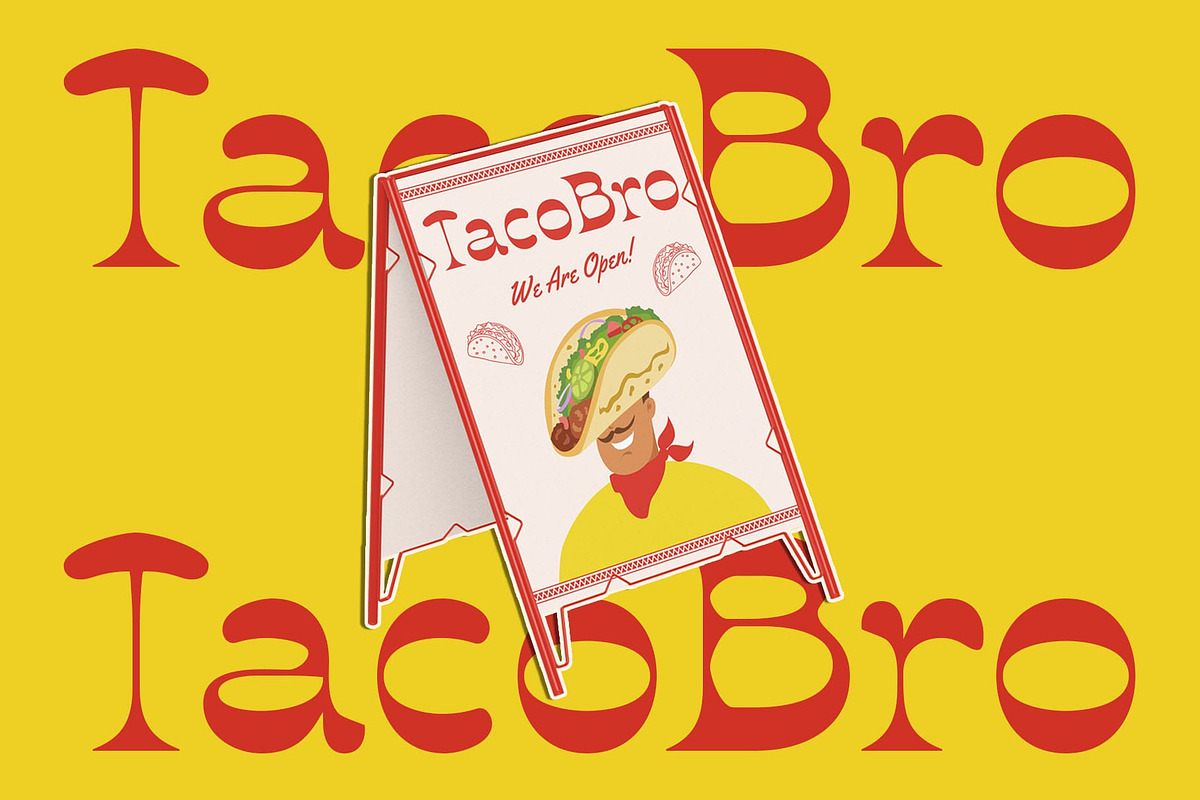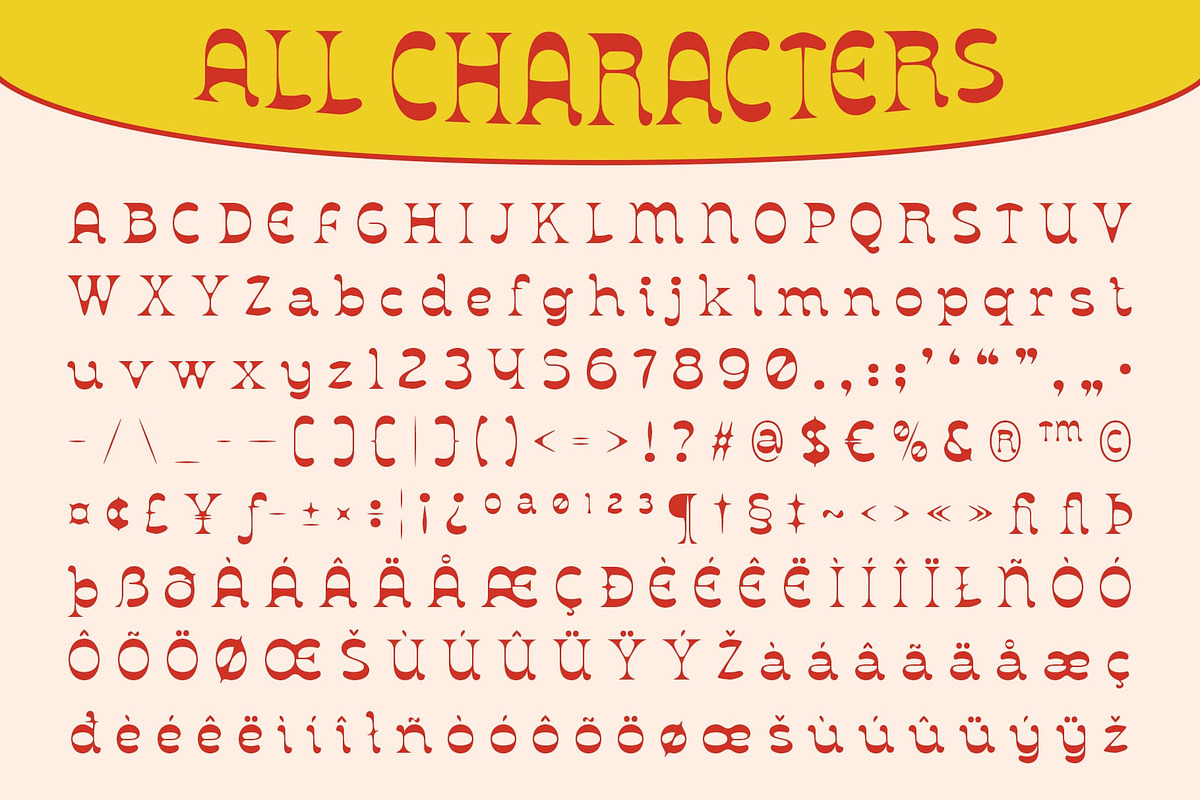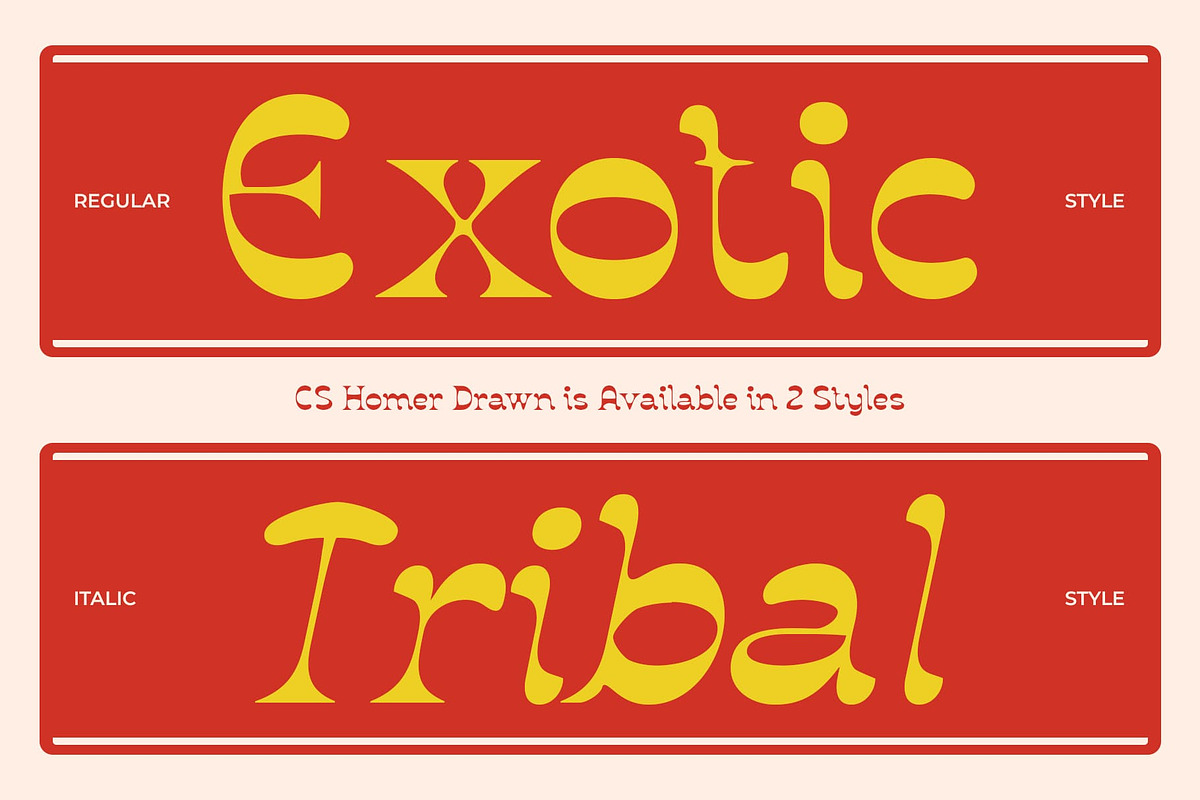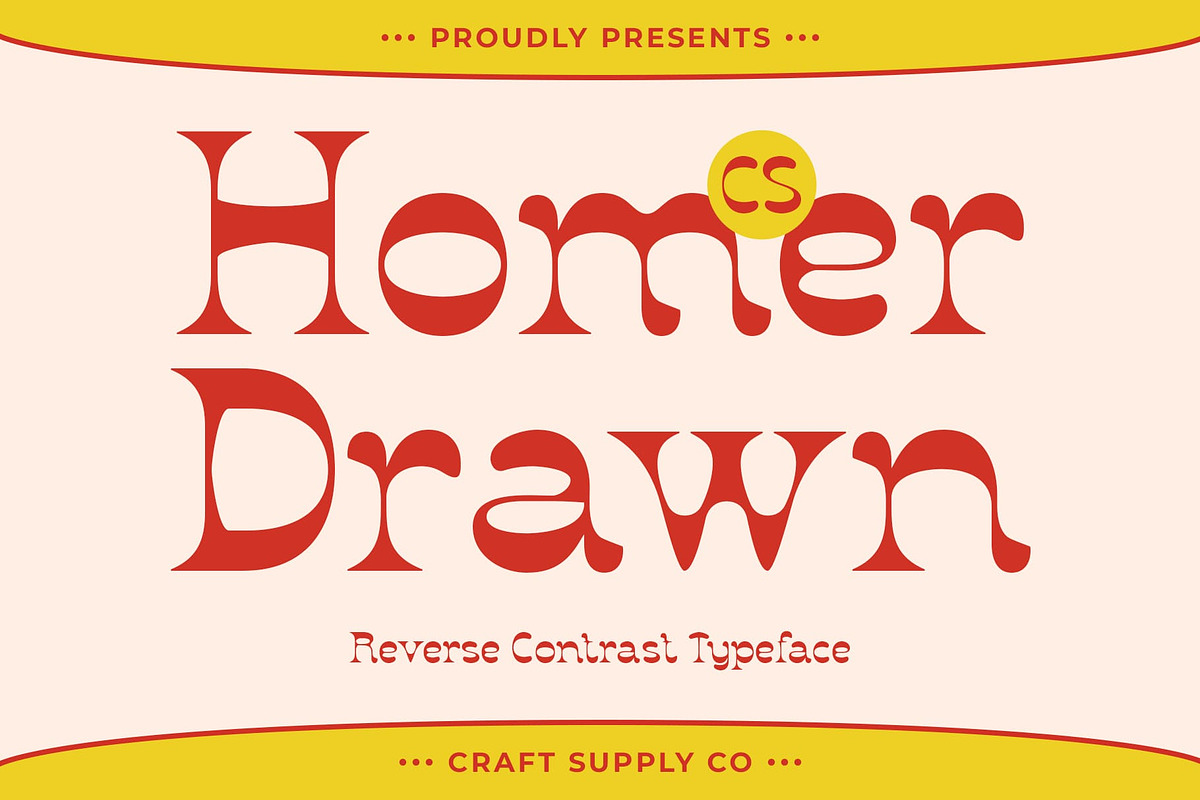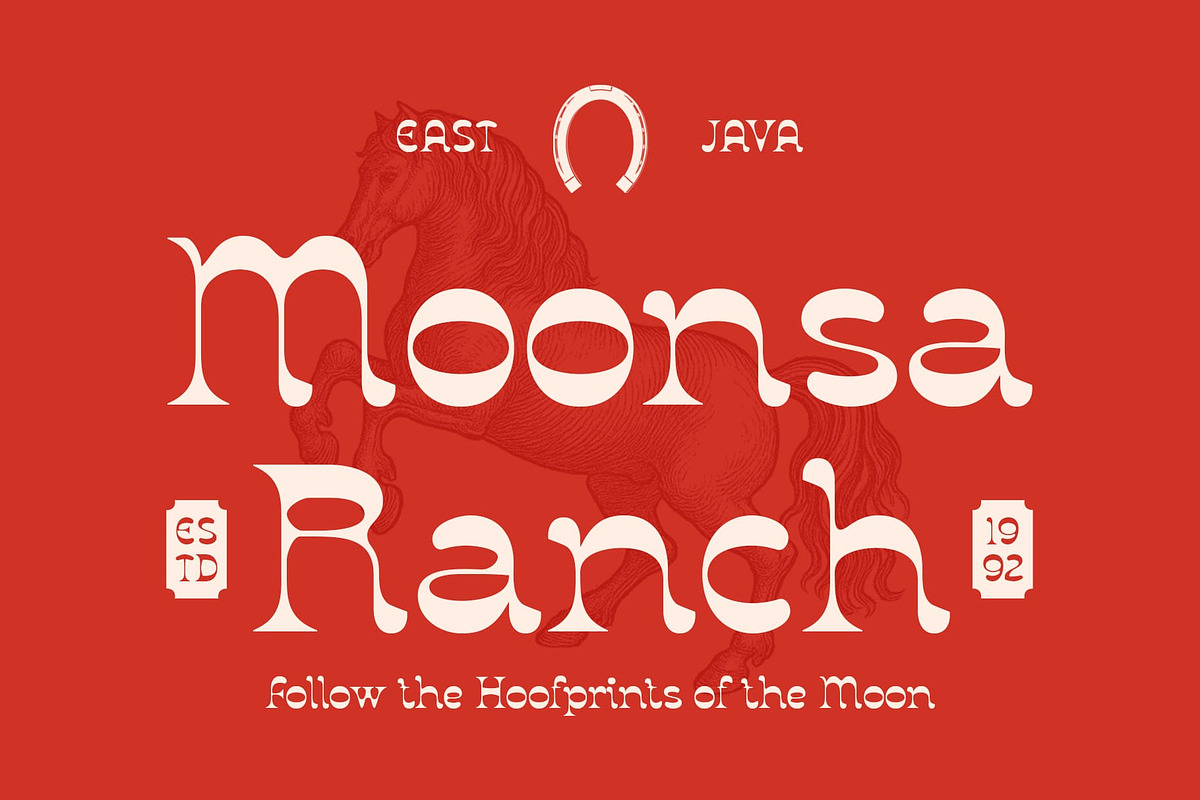
CS Homer Drawn
CS Homer Drawn – A Retro Serif with Bold Reverse Contrast and Handcrafted Charm
Vintage Spirit with a Bold Twist CS Homer Drawn is a striking display serif font that turns tradition on its head with reverse contrast—where horizontal strokes are thicker than vertical ones. This unexpected styling creates a bold and memorable visual impact, making it ideal for attention-grabbing headlines, logos, or posters.
Rooted in Classic Typography While the structure is inspired by 19th-century signage, wood type, and early advertising prints, the font retains the timeless appeal of classic serif forms. The carefully shaped serifs and high-contrast strokes exude historical richness, while the reversed contrast injects a sense of rebellious creativity.
Drawn Effect for Handcrafted Expression What makes this artistic and nostalgic font even more unique is the hand-drawn effect, which introduces an expressive, textured surface across its letterforms. This handcrafted finish softens the dramatic contrast and enhances its artistic, personal, and vintage charm. It brings a tactile dimension that evokes the spirit of hand-painted lettering and analog design.
Nostalgic Yet Contemporary The fusion of retro structure, reverse contrast, and drawn imperfection results in a font that feels both nostalgic and fresh. It’s a perfect choice for designers looking to channel a vintage aesthetic with a modern, creative twist, offering personality and punch in every character.